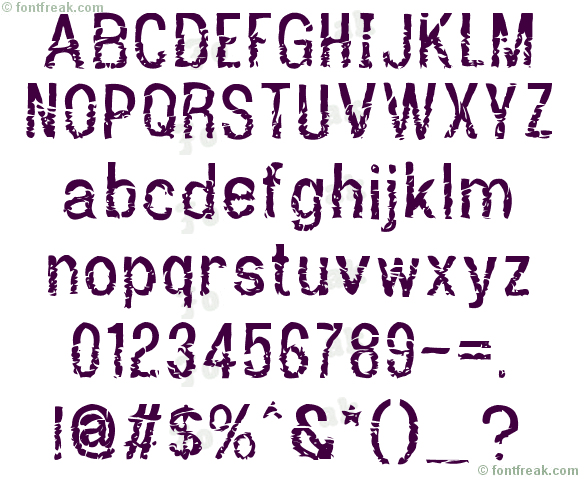
Dont Walk Run Regular
The Don't Walk Run font by Objects Dart is a captivating display typeface that combines playful energy with a touch of elegance. This font is categorized as a decorative style, making it ideal for projects that call for a lively and engaging visual presence. The strokes of the letters exhibit a moderate weight, creating a balanced contrast that enhances readability while still conveying a sense of movement and spontaneity. The ample spacing between characters adds to its legibility, making it suitable for various applications where clarity is essential.
Don't Walk Run is particularly well-suited for a range of creative projects. Its unique personality makes it an excellent choice for vibrant wedding invitations, where it can add a whimsical touch to the overall design. Additionally, this font shines in movie posters, where its dynamic appearance can evoke excitement and intrigue. Small business owners will find it perfect for restaurant menus, helping to create an inviting atmosphere that draws customers in. Content creators can also leverage this font for social media graphics, ensuring their posts stand out in a crowded digital landscape.
What sets the Don't Walk Run font apart is its distinctive flair and versatility. It is not merely a typeface but rather a visual statement that can breathe life into any project. This font encourages creativity and invites viewers to engage, making it a valuable asset for anyone looking to make a memorable impression.